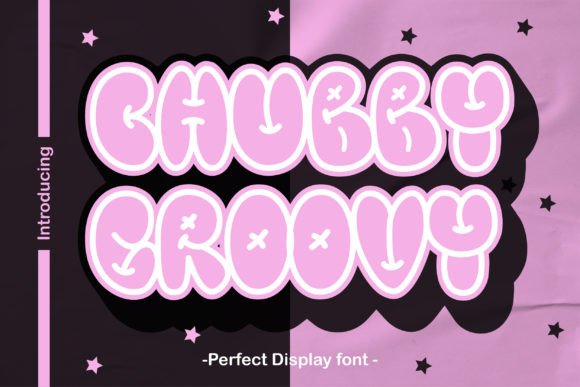
Chubby Groovy: The Retro Display Font for Bold Brands
There is a specific kind of energy that only a well-chosen display font can inject into a project. It's the difference between a design that sits quietly on a shelf and one that demands attention. Chubby Groovy lands squarely in that second category. This isn't just another variation on a standard sans serif font; it is a character-driven typeface built with personality, weight, and a distinct nod to retro aesthetics without feeling dated. When you are looking to break through the noise of modern minimalism, a font like this offers the visual anchor your brand identity needs.
Visually, Chubby Groovy lives up to its name. The letterforms are inflated, soft, and incredibly approachable. Unlike rigid geometric fonts that can feel cold or corporate, this creative font exudes warmth. The strokes are thick and consistent, creating a solid block of color that works exceptionally well for headlines and short bursts of text. There is a playful bounce to the baseline and subtle irregularities in the curves that suggest a human touch, bridging the gap between a polished premium font and a casual handwritten font. This duality makes it versatile; it feels professional enough for a startup logo but fun enough for a weekend market stall sign.
Where Retro Meets Modern Utility
The true test of any typography choice is its application in the real world. Chubby Groovy shines brightest when used in contexts that require immediate emotional connection. For entrepreneurs launching a line of organic snacks or a boutique coffee roaster, this font communicates "friendly" and "accessible" before the customer even reads the product description. In packaging design, the heavy weight of the letters ensures legibility from a distance, while the rounded edges invite the consumer to pick up the item.
Consider the current landscape of social media graphics. Feeds are crowded with sleek, thin lines and sterile white space. A post featuring Chubby Groovy stops the scroll simply by being different. It works beautifully on tote bags, T-shirts, and hats, where the text often serves as the primary graphic element. Because the font is so graphic in nature, it doesn't need elaborate illustrations to stand out. A simple quote or a brand name set in Chubby Groovy can carry an entire merchandise line. This is particularly valuable for small business owners who need to maximize impact with limited design resources.
Beyond physical products, the font holds its own in editorial design and digital headers. While it is not suitable for long body copyβno display font really isβit excels as a section breaker or a pull-quote highlighter in magazines and blogs. It adds a layer of texture to the page that keeps the reader engaged. For web design, using it sparingly on call-to-action buttons or hero banners can significantly increase click-through rates by making the interface feel more inviting and less robotic.
Building Brand Perception Through Typography
Your choice of typeface is a silent ambassador for your brand. If you choose a sharp, angular serif font, you signal tradition and authority. If you choose a flowing script font, you suggest elegance or creativity. Chubby Groovy signals something else entirely: confidence, fun, and timelessness. It tells your audience that you don't take yourself too seriously, but you take your craft seriously. This perception is crucial for brands targeting millennials and Gen Z, demographics that often respond better to authenticity and humor than to corporate polish.
Consistency is key to building recognition. Once you establish Chubby Groovy as part of your brand identity, use it across all touchpoints. From your business cards to your email signatures, the consistent use of this distinct style helps customers recognize you instantly. However, professionalism doesn't mean boring. You can maintain a high level of professionalism while using a fun font, provided you respect the rules of hierarchy. Use Chubby Groovy for the headlines and pair it with a clean, neutral sans serif font for the body text. This contrast ensures that while the headline grabs attention, the detailed information remains easy to digest.
Practical Strategies for Implementation
Integrating a strong character font like Chubby Groovy requires a bit of strategy. You cannot simply drop it into any layout and expect magic. Here is how to evaluate if it is the right fit for your next project:
- Evaluate the Message: Does your content benefit from a playful tone? If you are writing a legal disclaimer or a serious financial report, this is likely not the right tool. But for lifestyle content, event invitations, or creative portfolios, it is perfect.
- Test Font Pairings: Because Chubby Groovy is so bold, it needs a partner that steps back. Try pairing it with a lightweight, neutral sans serif like Helvetica Neue Light or a simple geometric font. Avoid pairing it with other decorative fonts, as this creates visual competition that confuses the eye.
- Check Readability at Scale: Always test your designs at the size they will be viewed. While the thick strokes are great for large prints, ensure that smaller details, like the counters (the enclosed spaces inside letters like 'o' or 'e'), do not fill in when printed on textured materials like cotton tote bags.
Ultimately, the goal of any design asset is to communicate clearly and connect emotionally. Chubby Groovy achieves this by balancing form and function. It is heavy enough to command space but soft enough to welcome the viewer. By understanding its strengths and limitations, you can leverage this premium font to create spectacular designs that resonate with your audience and stand the test of time. Don't be afraid to let your designs get a little chubby; sometimes, that extra weight is exactly what your brand needs to make an impression.